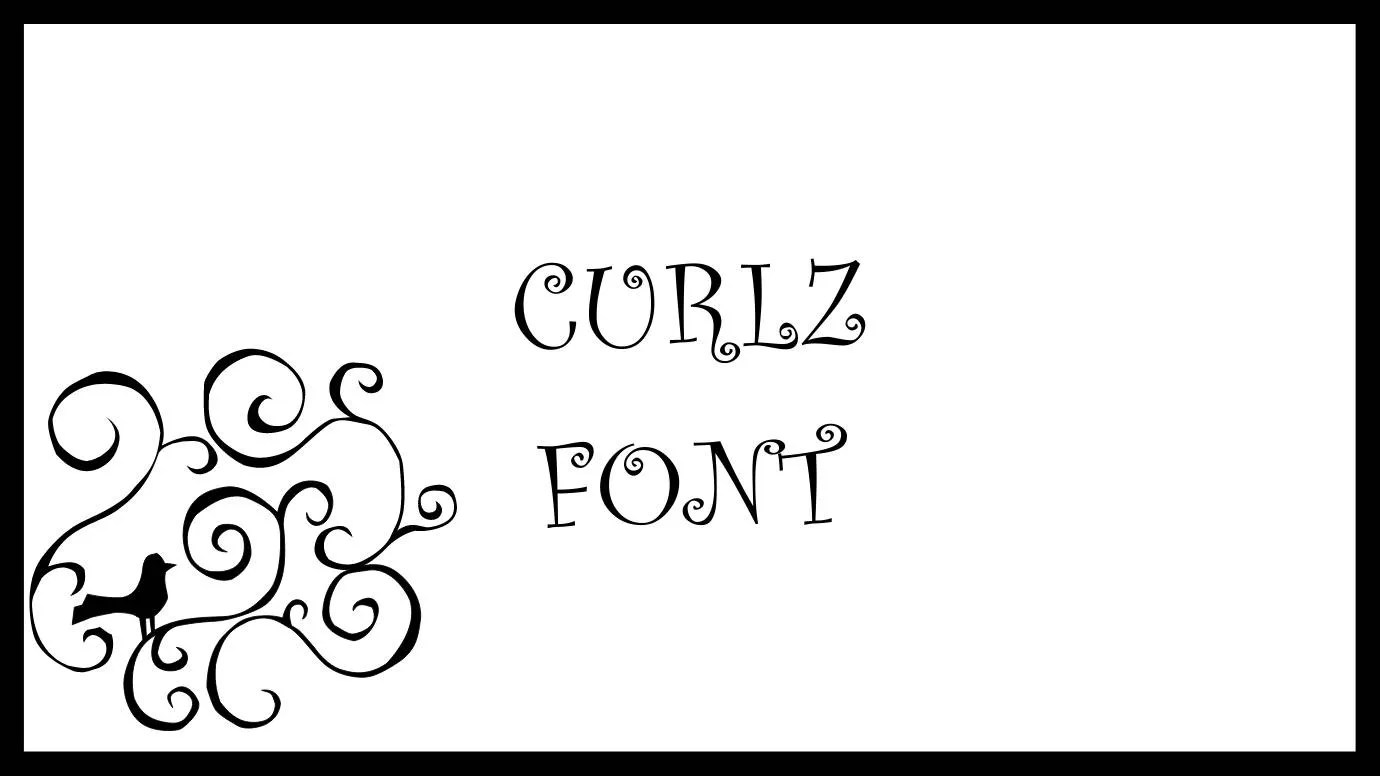
Curlz Embroidery Font Free Download . The curlz set is both whimsical and eminent with its spiral curves. Browse through our collection of free embroidery font samples to help you find the best lettering to use for your projects. Download curlz mt regular for free. For a unique, festive touch, add a little curlz to posters,. In order to make it as easy. You may download the curlz font family for free for personal use solely from this site. Also take advantage of our free online training for this software! Curlz was designed by steve matteson and carl crossgrove in 1995. View sample text, character map, user rating and review for curlz mt regular. Three fonts are included with our free font software download. In our second day we are you bringing you one of our favorite and most popular free embroidery design font sets. Click here and download the curlz font · window, mac, linux · last updated 2024 · commercial licence included.
Curlz Embroidery Font Free Download Curlz was designed by steve matteson and carl crossgrove in 1995. For a unique, festive touch, add a little curlz to posters,. Download curlz mt regular for free. Click here and download the curlz font · window, mac, linux · last updated 2024 · commercial licence included. Curlz was designed by steve matteson and carl crossgrove in 1995. View sample text, character map, user rating and review for curlz mt regular. In order to make it as easy. Three fonts are included with our free font software download. Also take advantage of our free online training for this software! The curlz set is both whimsical and eminent with its spiral curves. You may download the curlz font family for free for personal use solely from this site. In our second day we are you bringing you one of our favorite and most popular free embroidery design font sets. Browse through our collection of free embroidery font samples to help you find the best lettering to use for your projects.